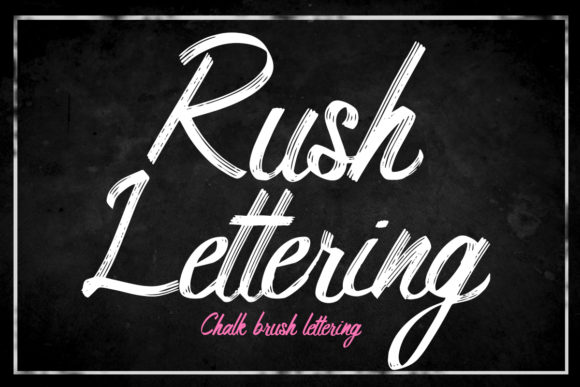
Introducing Rush Lettering Font, the enchanting brushed script font that will ignite your creativity and add a touch of magic to your designs.
Picture this: your creations adorned with the graceful strokes of Rush Lettering, evoking a sense of joy and romance that captivates all who gaze upon them. This versatile font is a feast for the eyes, effortlessly enhancing your designs whether it's a captivating logo, an elegant brochure, or a heartfelt invitation.
Crafted with meticulous care, Rush Lettering's PUA encoding grants you effortless access to its enchanting glyphs and swashes, empowering you to unleash your imagination and create designs that dance off the page.
Don't settle for ordinary; embrace the extraordinary with Rush Lettering Font. Let its gentle brushstrokes transform your projects into unforgettable masterpieces that resonate with your audience.